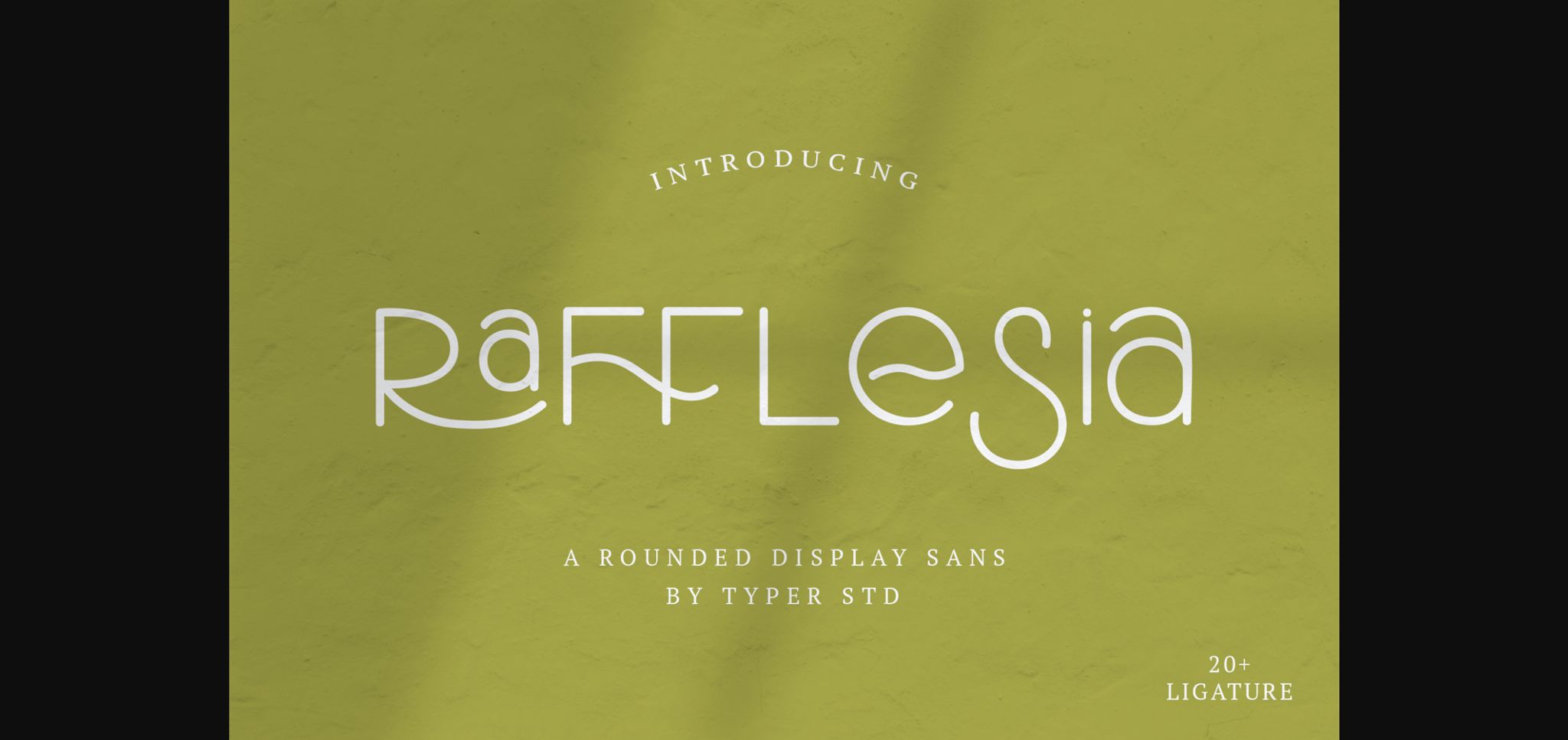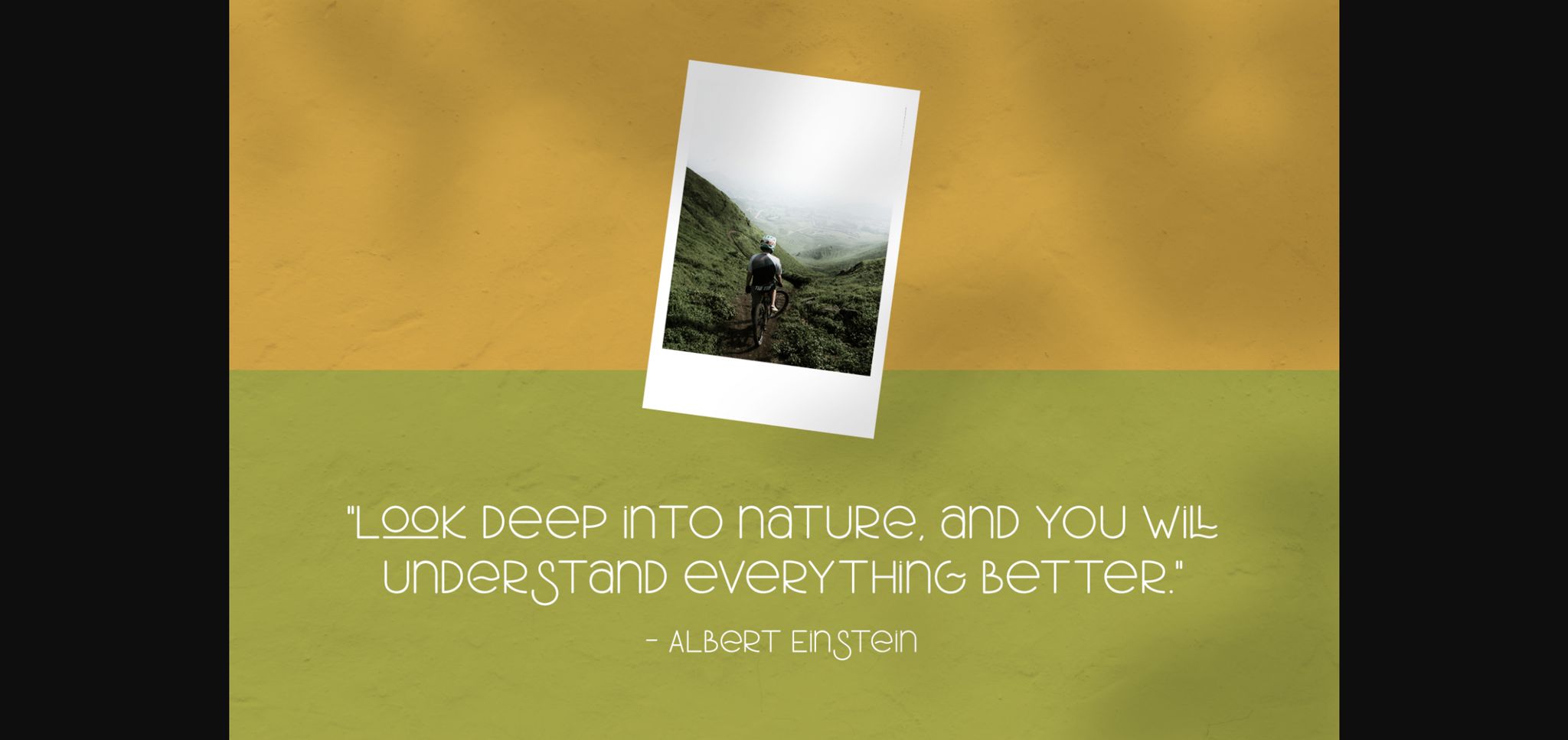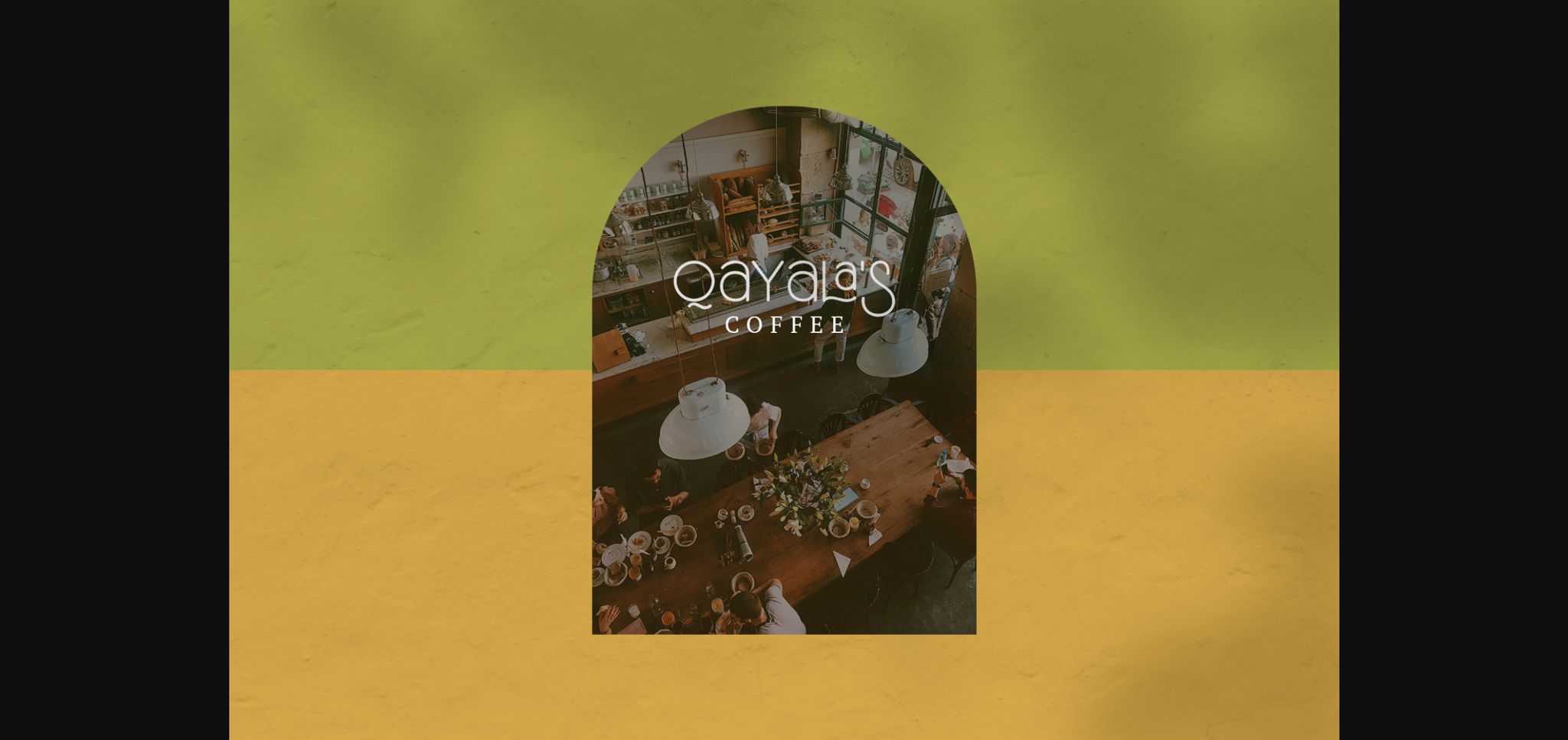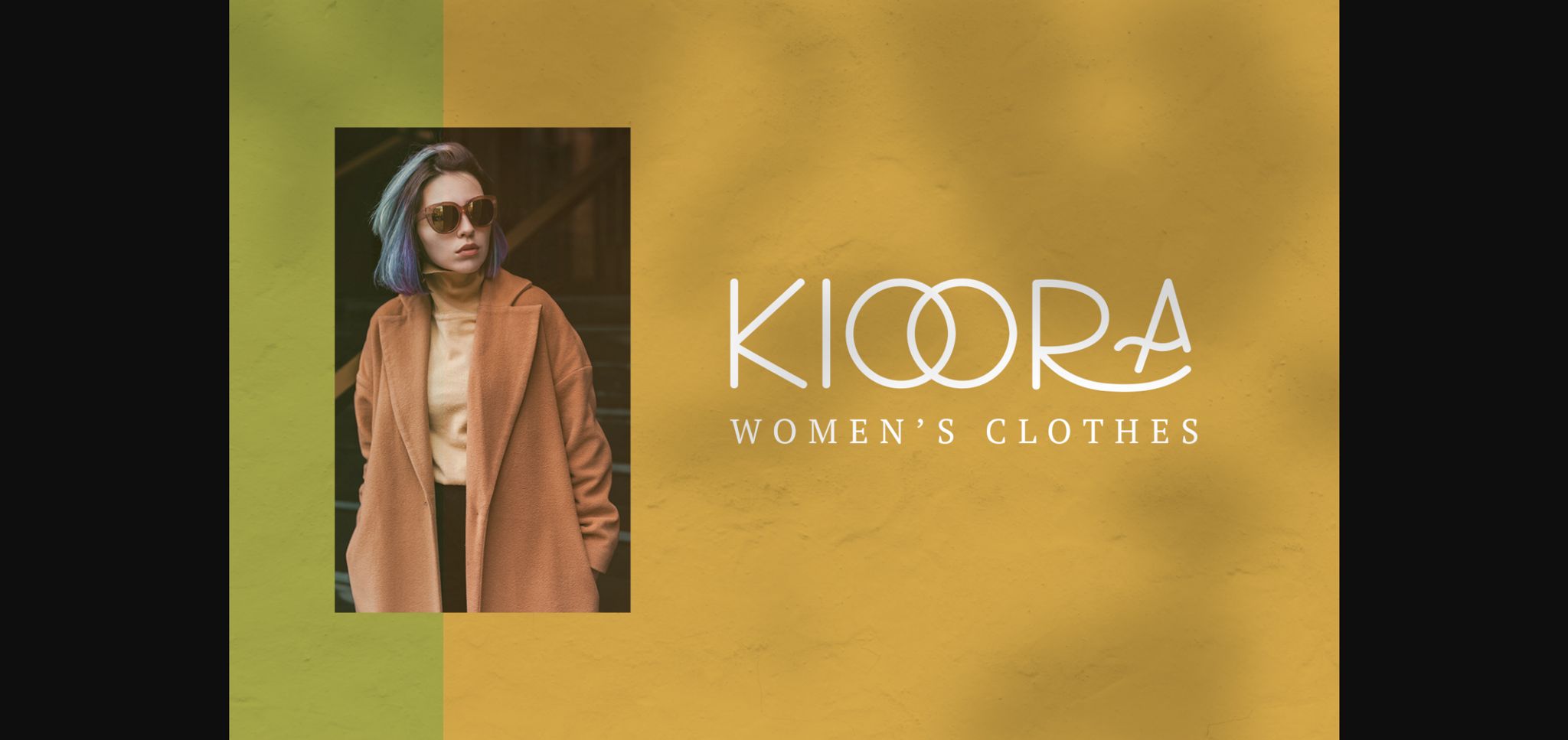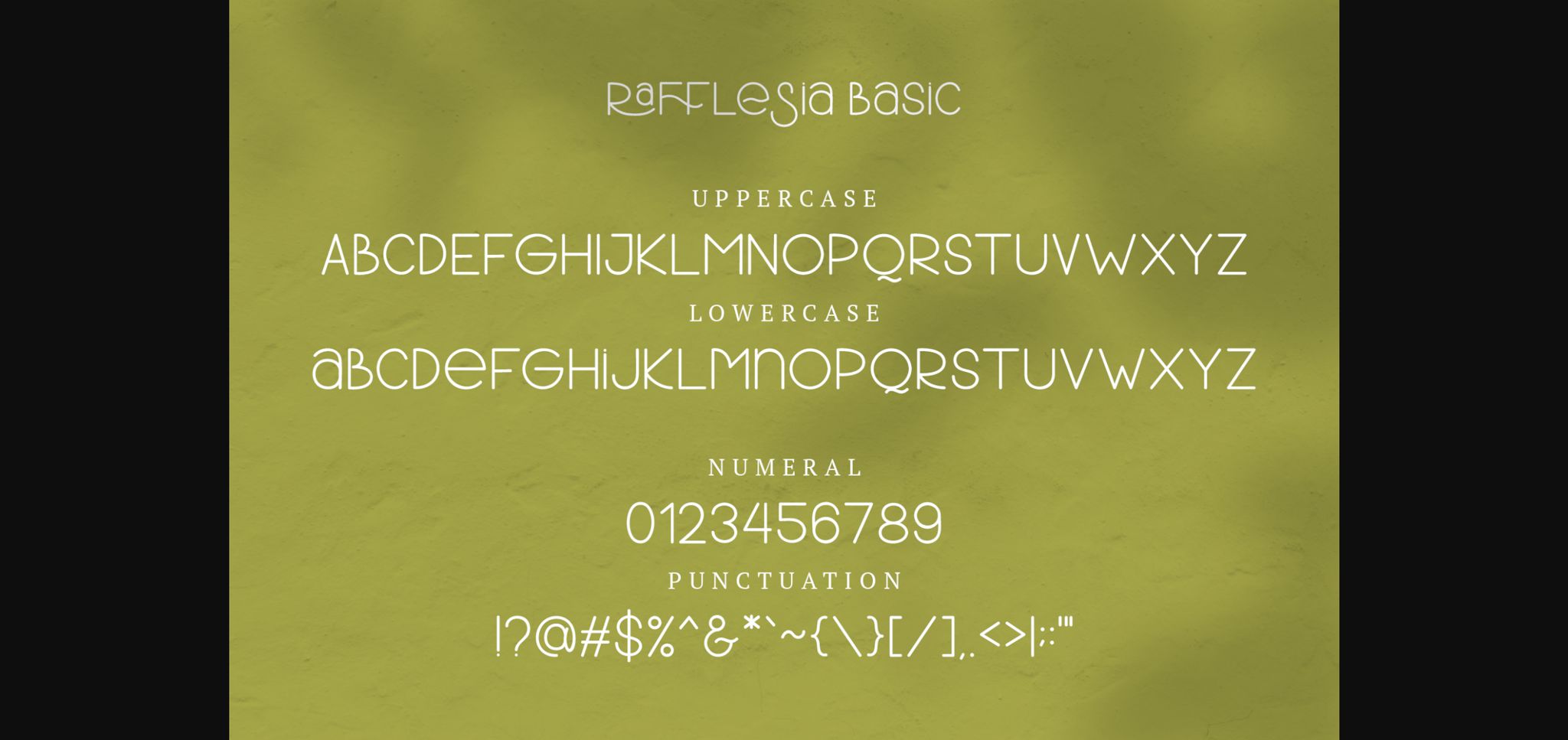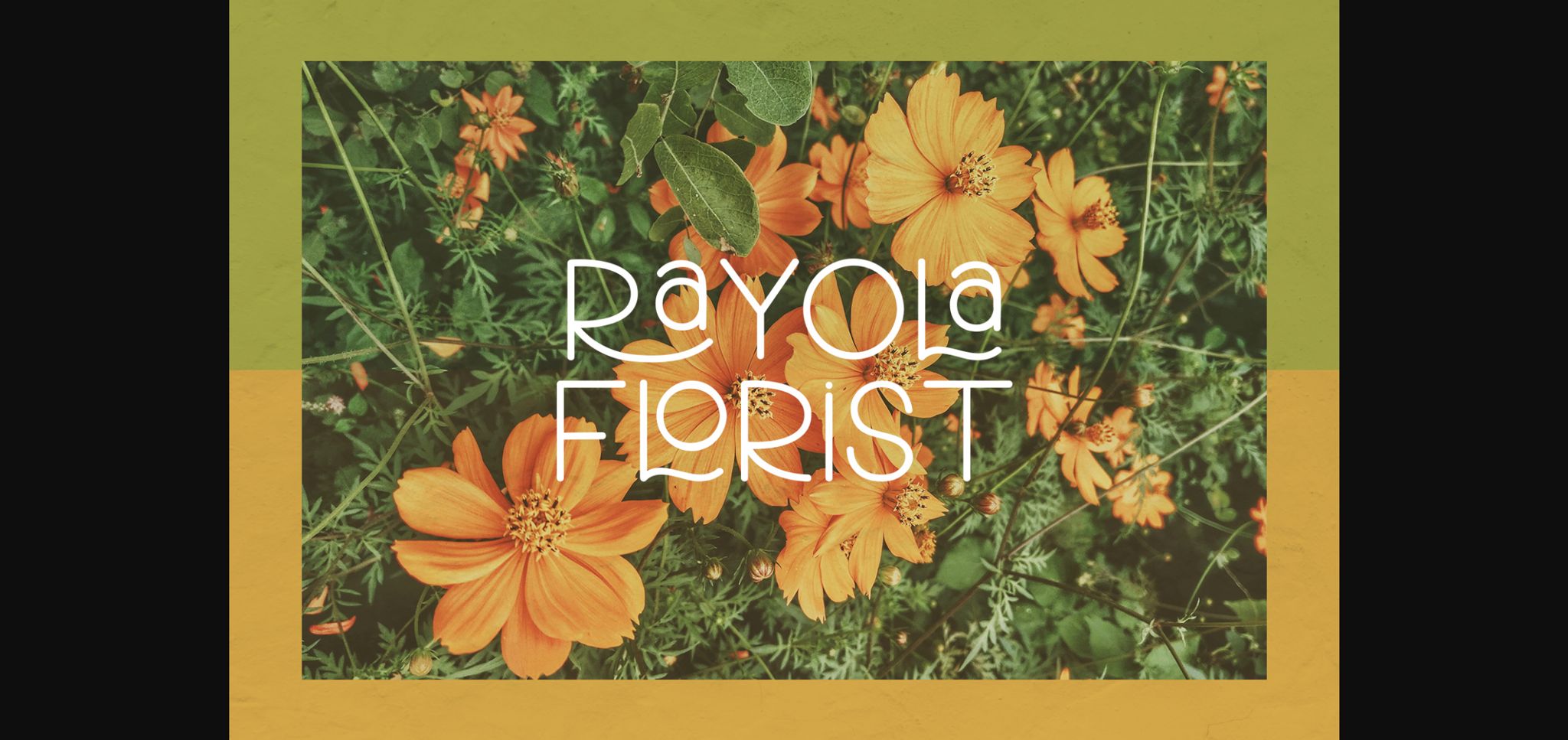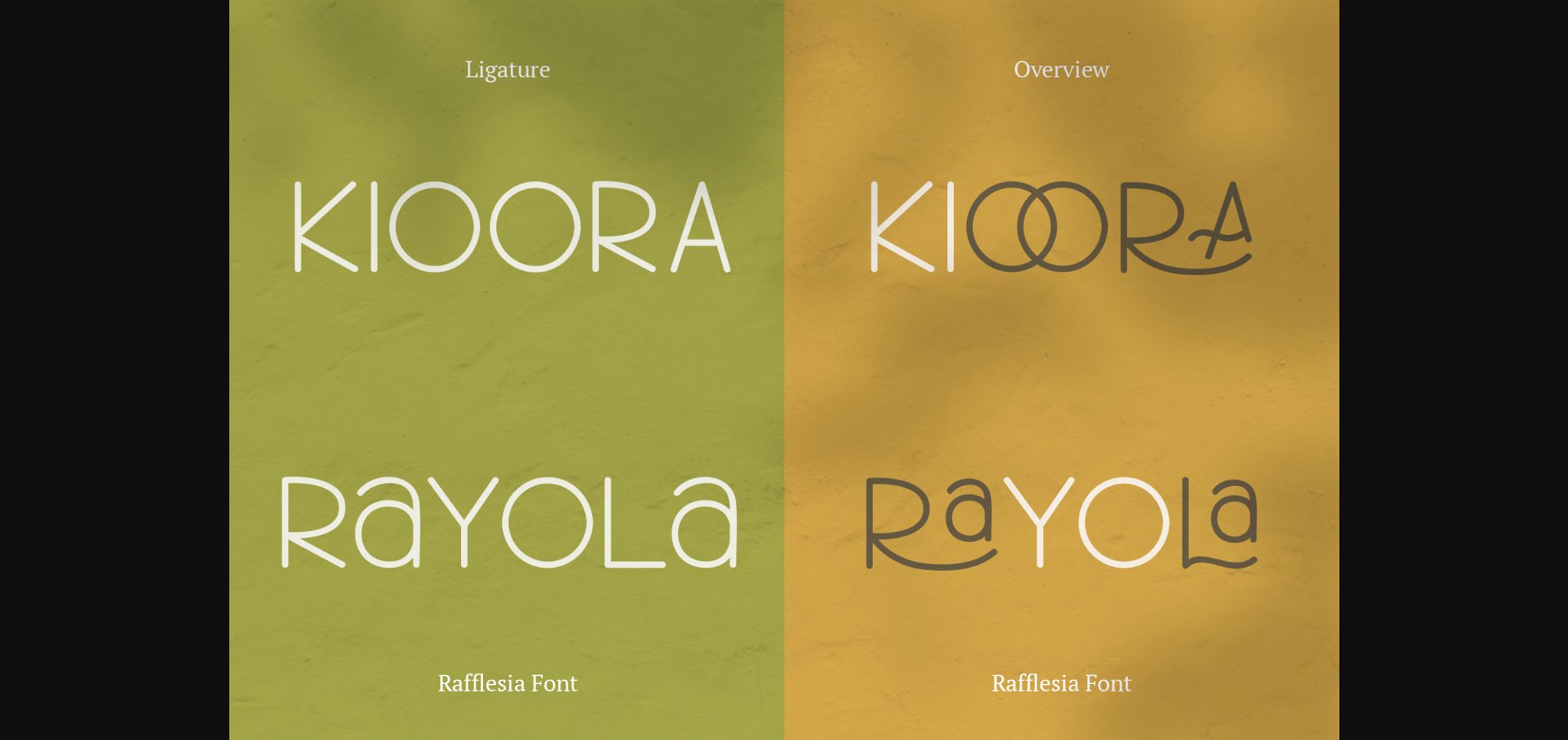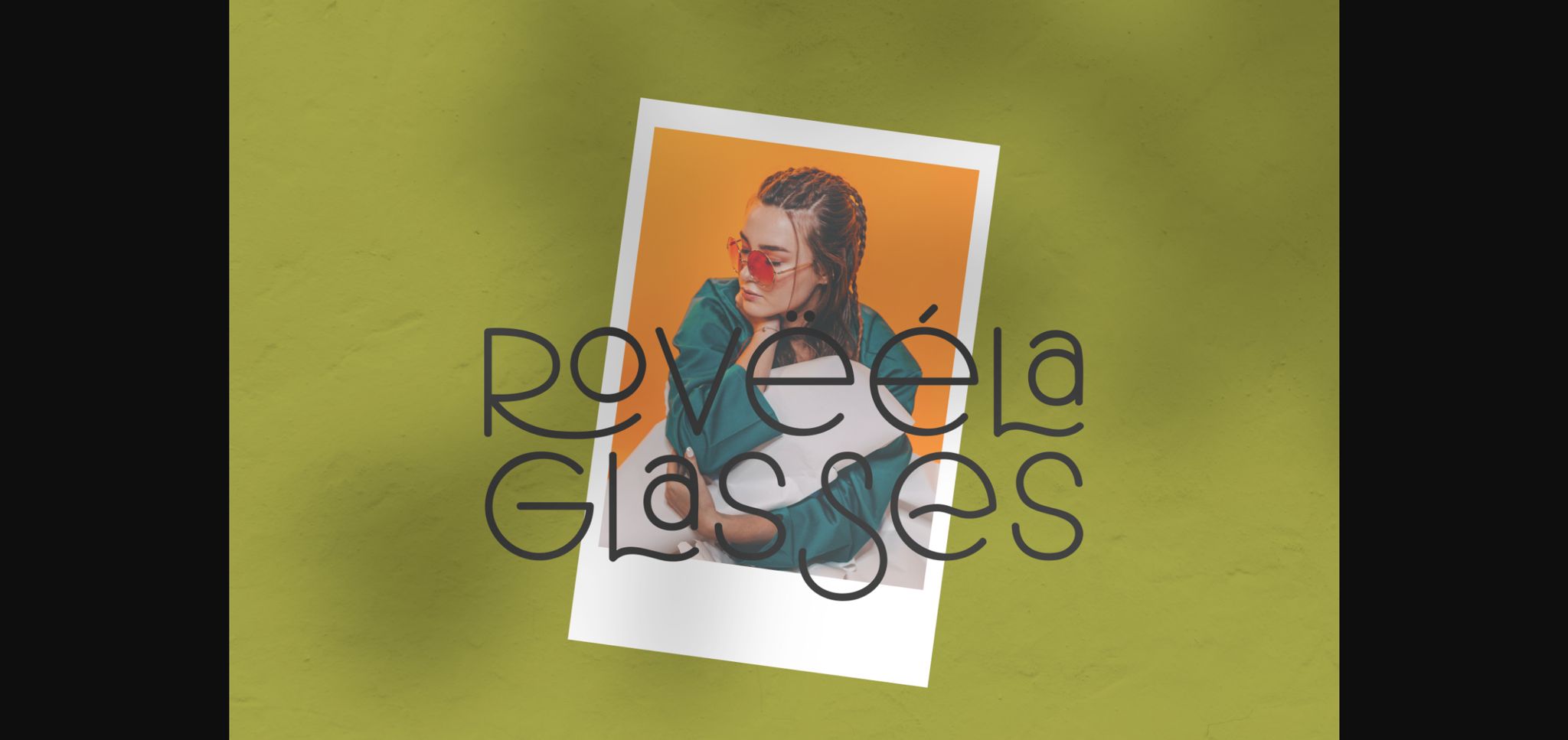
Rafflesia is a thin and elegant sans serif font. Simple but with a strong visual effect, this font will instantly make your creation more appealing than any others.